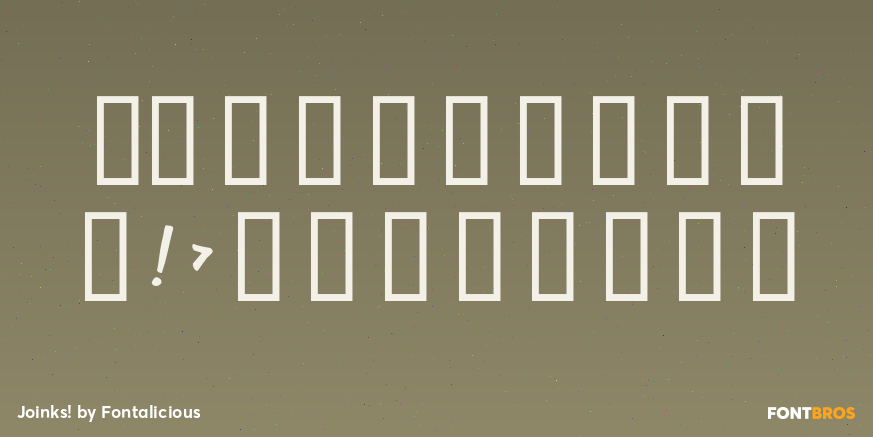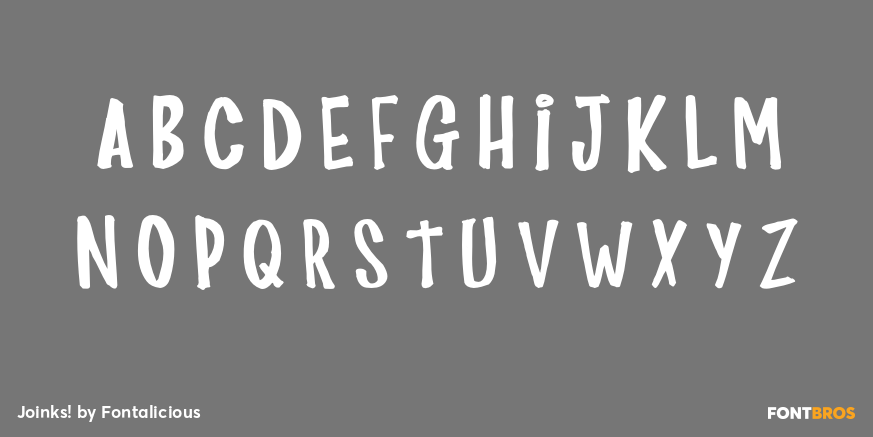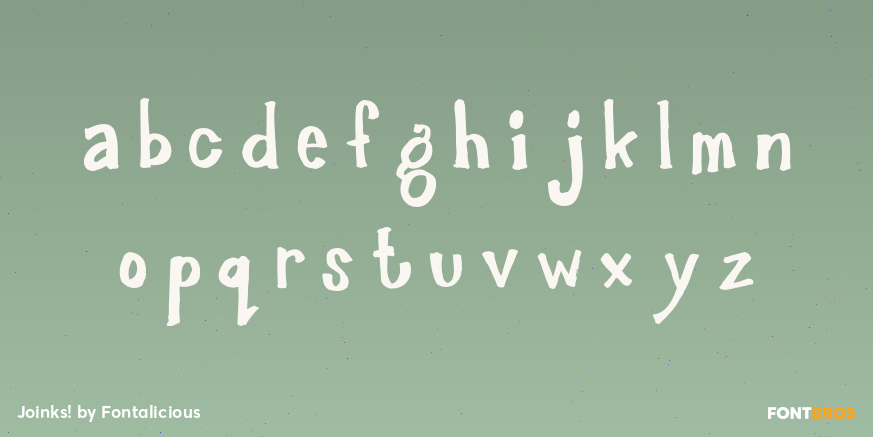
Joinks!
Font Family by Fontalicious
Its Joink-a-riffic, joink-o-mite, and joink-a-licious all wrapped into one font! What a good deal you are getting here!!